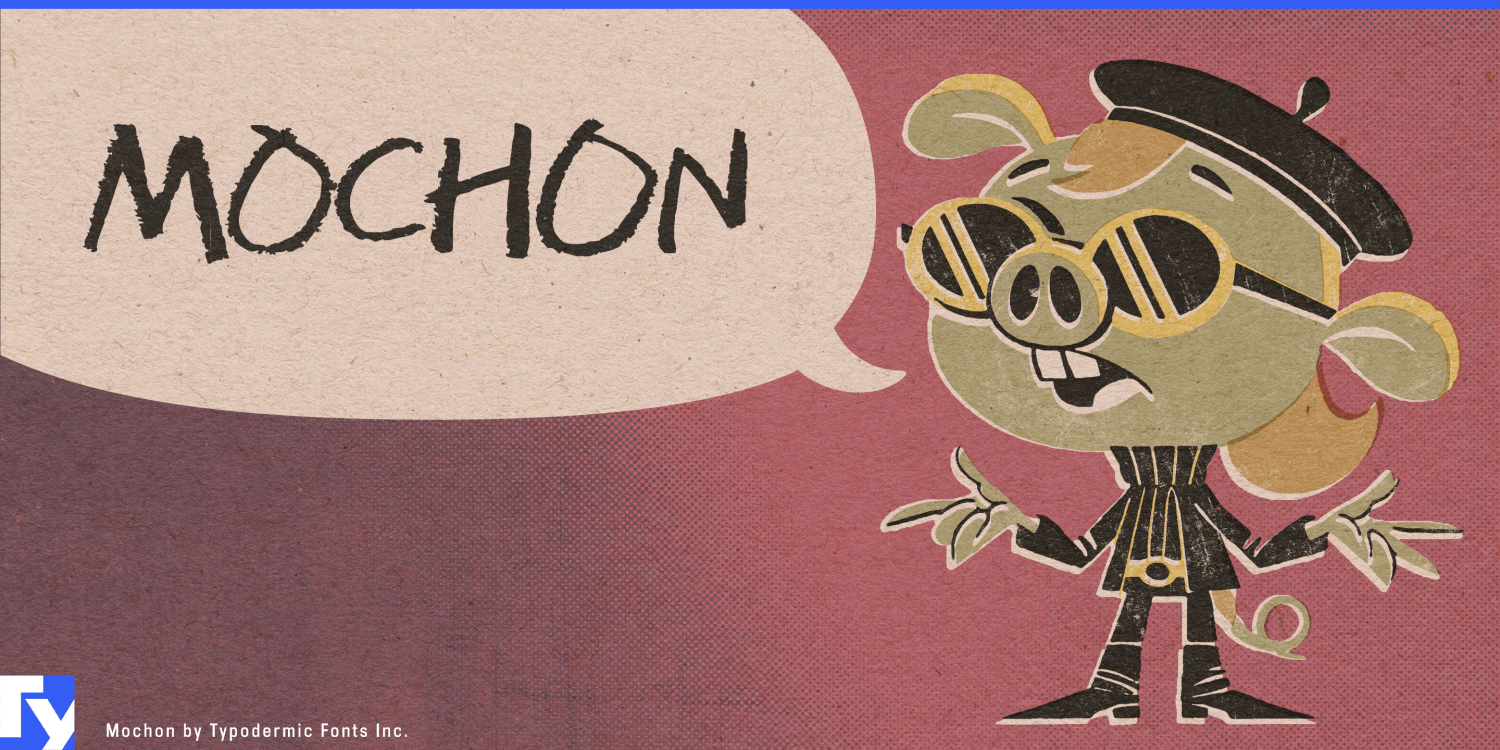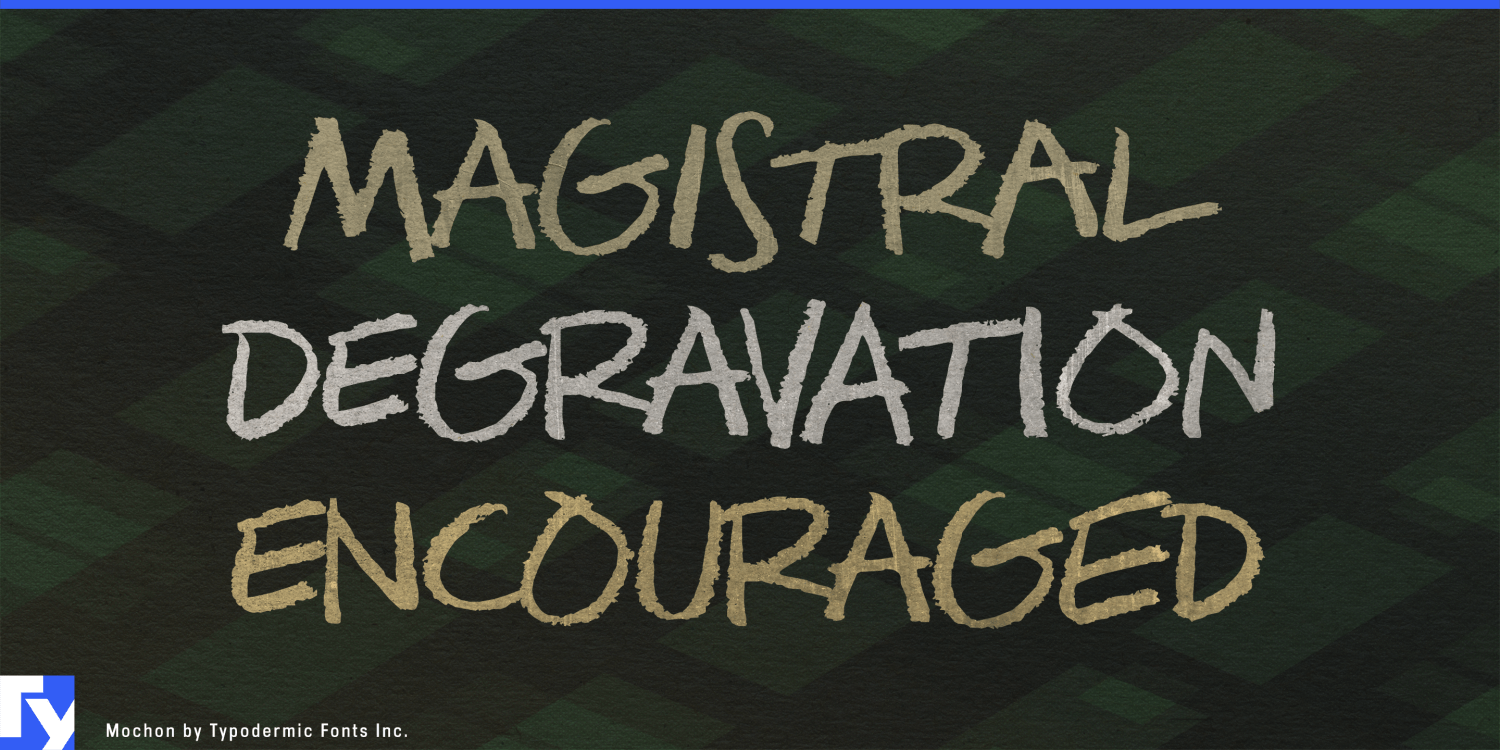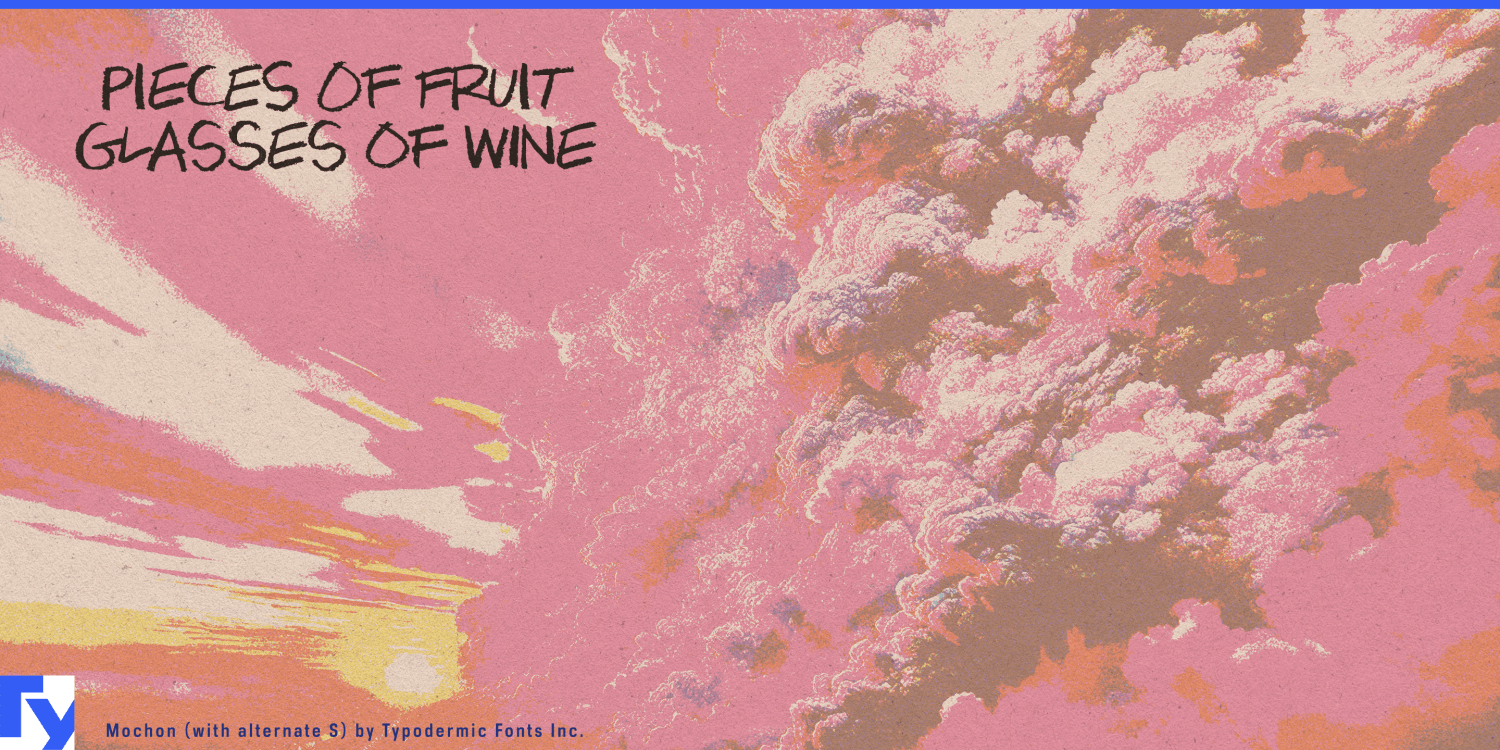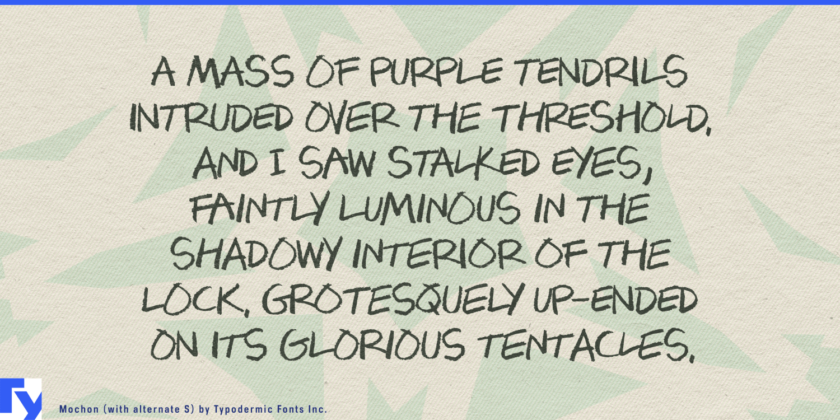
About Mochon
Mochon isn’t just another typeface—it’s a creative homage to Donald Mochon, the former dean of RPI’s School of Architecture, whose innovative spirit lives on through every curve and line. This hand-lettered gem captures the essence…